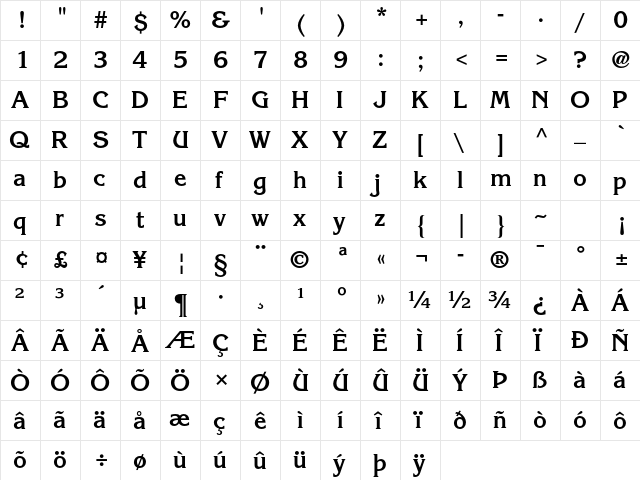
ITC Korinna Std Bold
| Designer | Ed Benguiat, Vic Caruso |
Design Context for ITC Korinna Std Typeface
ITC Korinna Std takes a measured approach to typography — its balanced proportions and neutral character make it a reliable workhorse for both digital and print work. The heavy weight commands attention and anchors typographic hierarchies.